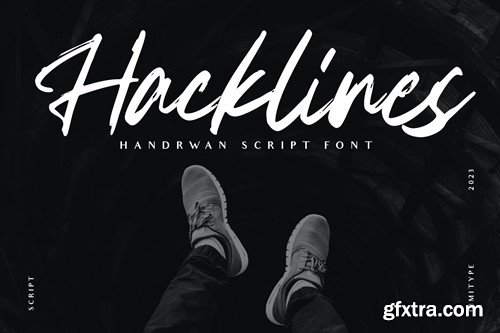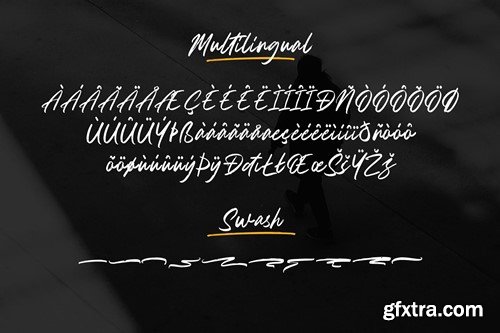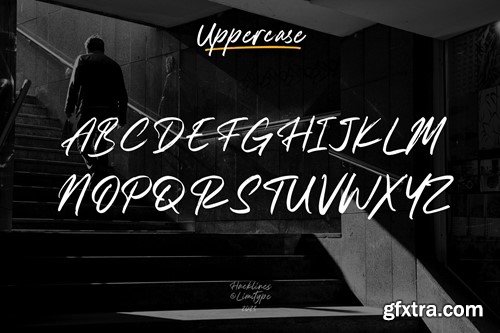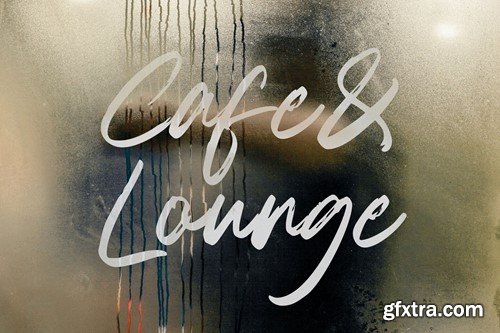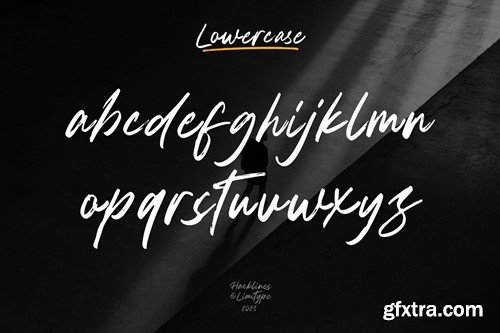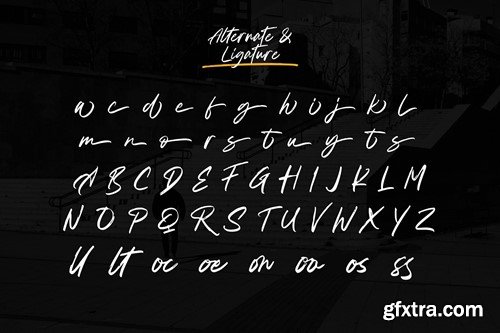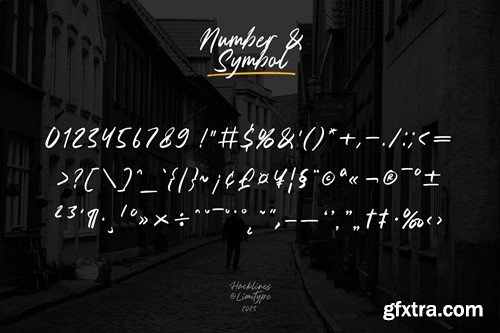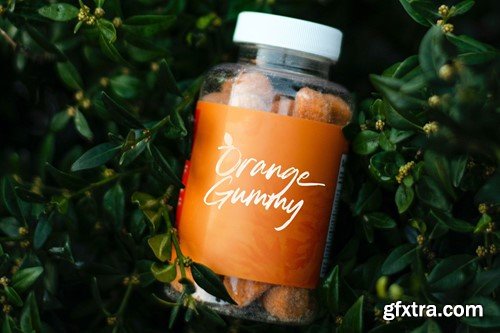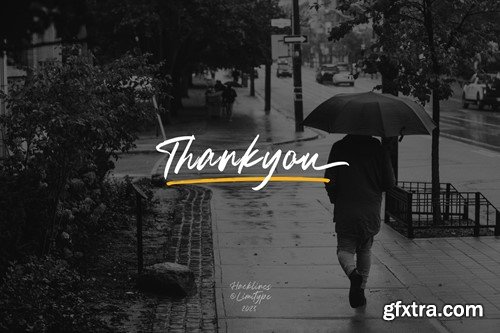
Hacklines - Handrawn Script Font LQMXABW
Hacklines - Handrawn Script Font
"Hacklines" is a script font crafted in a natural hand-touched style, featuring a flexible appearance and a slightly textured shape that adds to the uniqueness of this font. Suitable for various design needs, whether modern, luxurious, elegant, or even playful.
Hacklines comes with:
• Uppercase
• Lowercase
• Numbers
• Symbols
• Alternate
• Ligatures
• Multilingual
• Swash